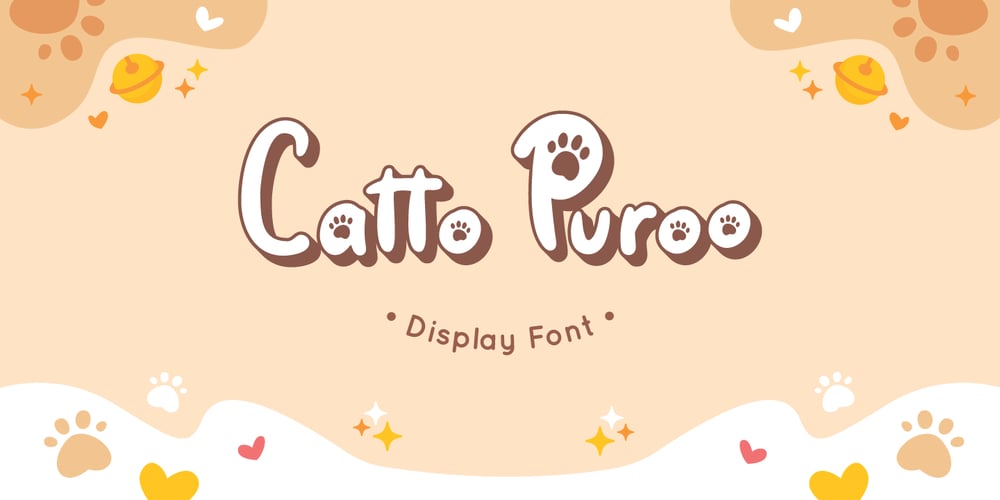
Catto Puroo Font Family was designed by Fadli Ramadhan Iskandar and published by Attype Studio. Catto Puroo contains 3 styles and family package options. Introducing Catto Puroo, the perfect font for all animal-related products. With three different versions – regular, display, and extruded – Catto Puroo offers versatility and a range of design possibilities. The display version features a paw print on the font, which is perfect for creating fun and playful designs. Combine it with the extruded version for a 3D look that will make your designs stand out.Catto Puroo is the go-to font for animal lovers, pet enthusiasts, and anyone looking to create designs that are fun, quirky, and memorable.Features :- Catto Puroo Family Fonts- Ligatures- Multilingual, US Roman, Latin 1 Support —Hope you enjoy with our font!Attype Studio